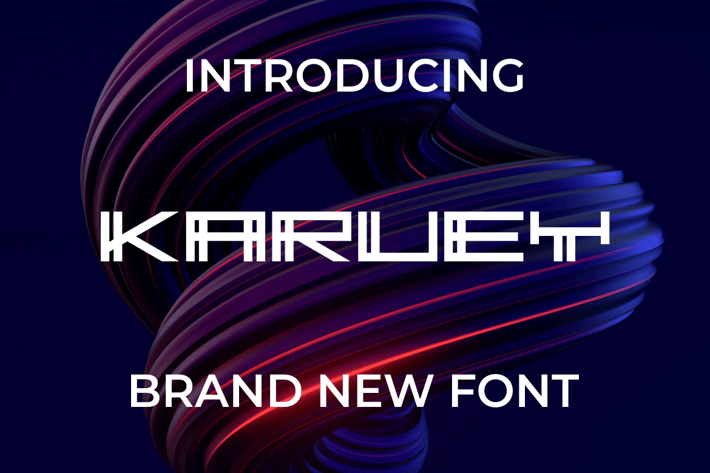
KARUEY Font
Introducing our new product KARUEY Font - Modern Font
KARUEY Font - Modern Font is a bold and authentic display font. The font is suitable for any branding project like logo, t-shirt printing, esport, and many more. outstanding in a wide range of contexts.